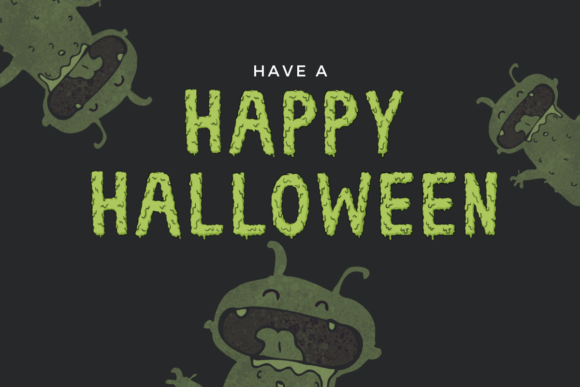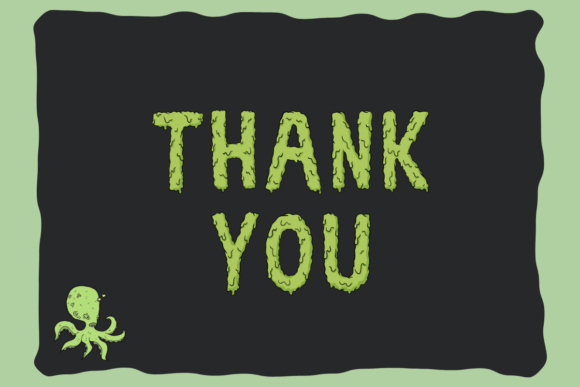
Introduction to Slimeds Font
Slimeds is a slimy and playful color font.
Its playfulness makes it great for creative projects, be it inspirational wall posters, Halloween stickers, or funky apparel .
Key Features of Slimeds Font
Why Choose Slimeds Font?